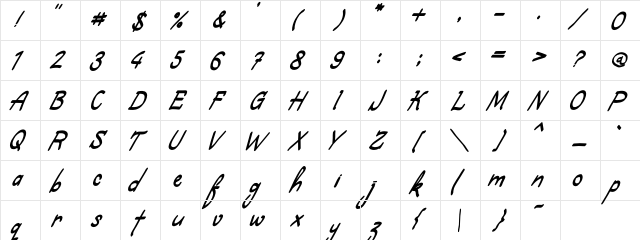
Ambarawa Script
Design Context for Ambarawa Typeface
Ambarawa flows with the natural rhythm of handwritten lettering, making it ideal for designs that call for warmth and personal expression.
Font Pairing: Combine Ambarawa with a simple geometric sans for maximum contrast — the tension between flowing curves and clean structure is a classic typographic pairing.
Pro Tip: Use Ambarawa for short runs of text — names, titles, or taglines. Extended body copy in script faces tires the eye quickly.